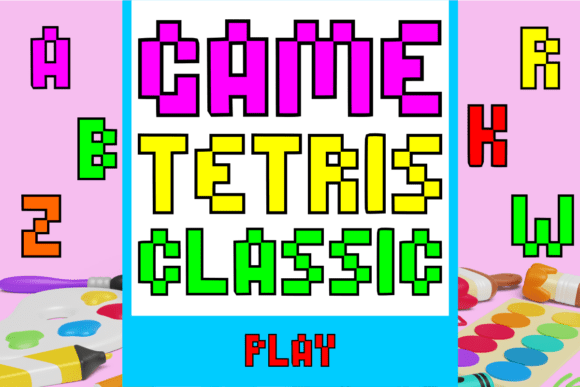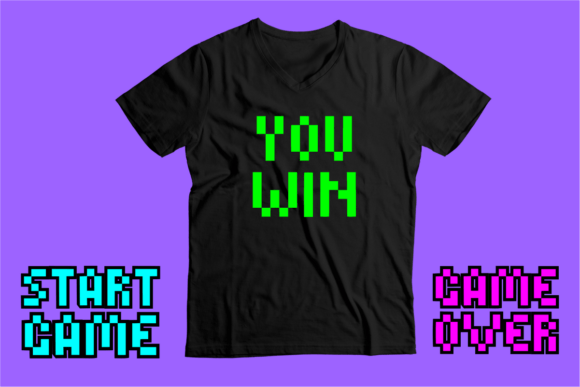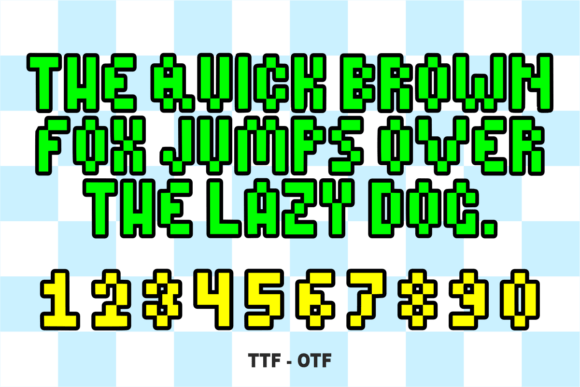
Introduction to Simple Pixel Font
Simple Pixel is a display font with pixelated characters, reminiscent of those found in old-school console games.
Simple Pixel font is a playful, high-contrast display typeface that pays homage to the vibrant aesthetics of 8-bit video games and early digital interfaces This Simple Pixel typeface features a unique “shadowed” layering effect that adds depth and a 3D feel to its blocky, geometric letterforms.
Key Features of Simple Pixel Font